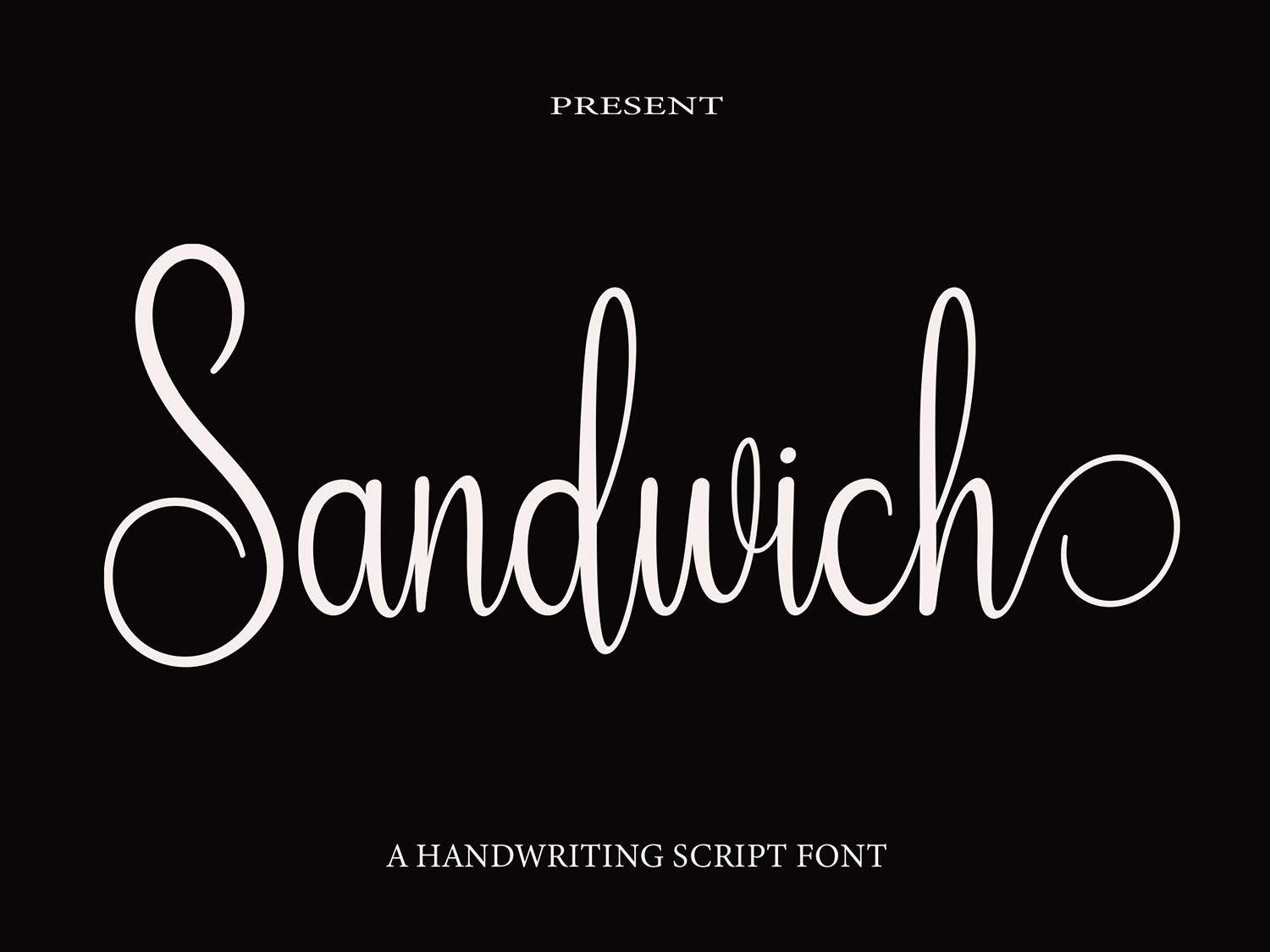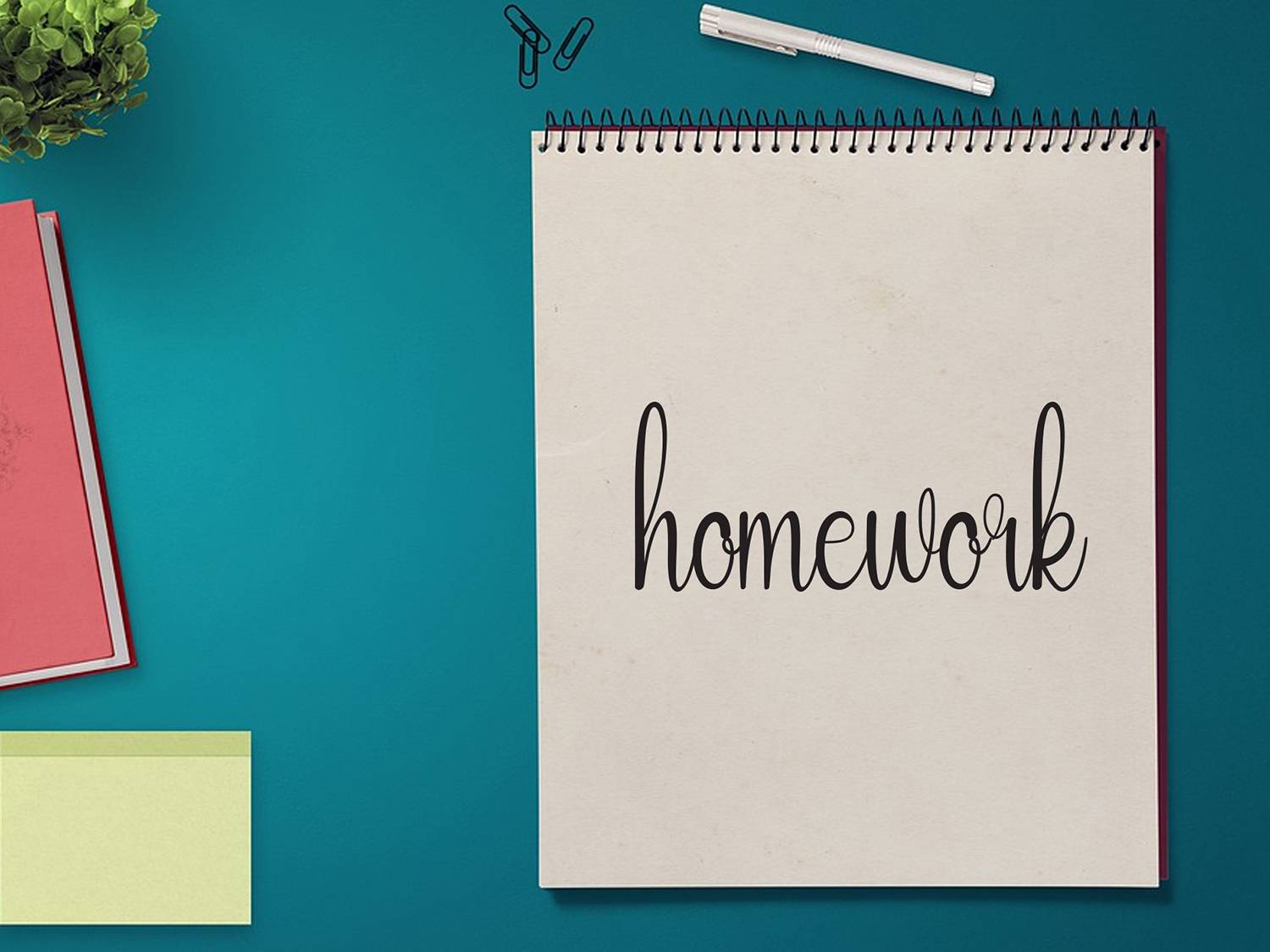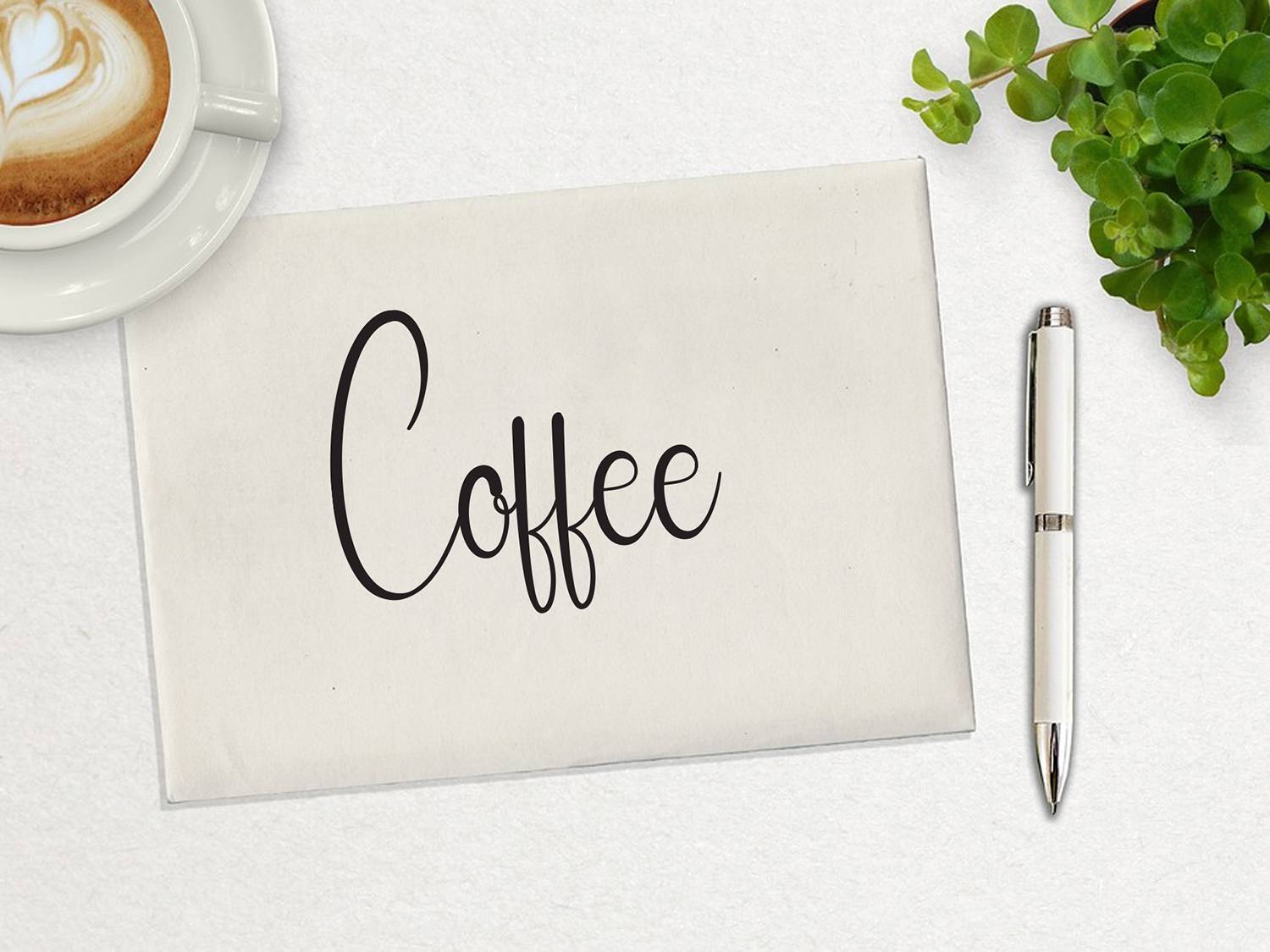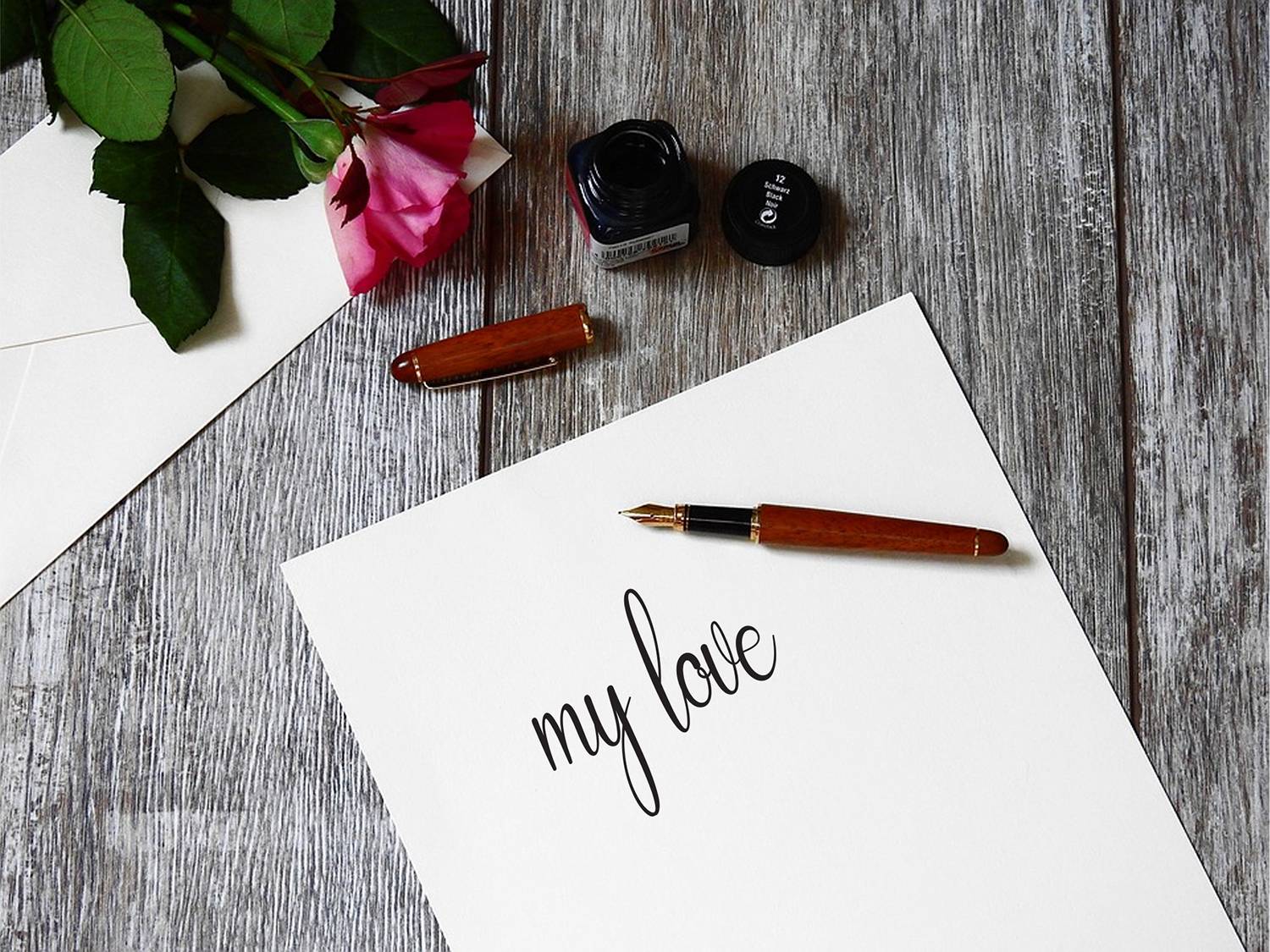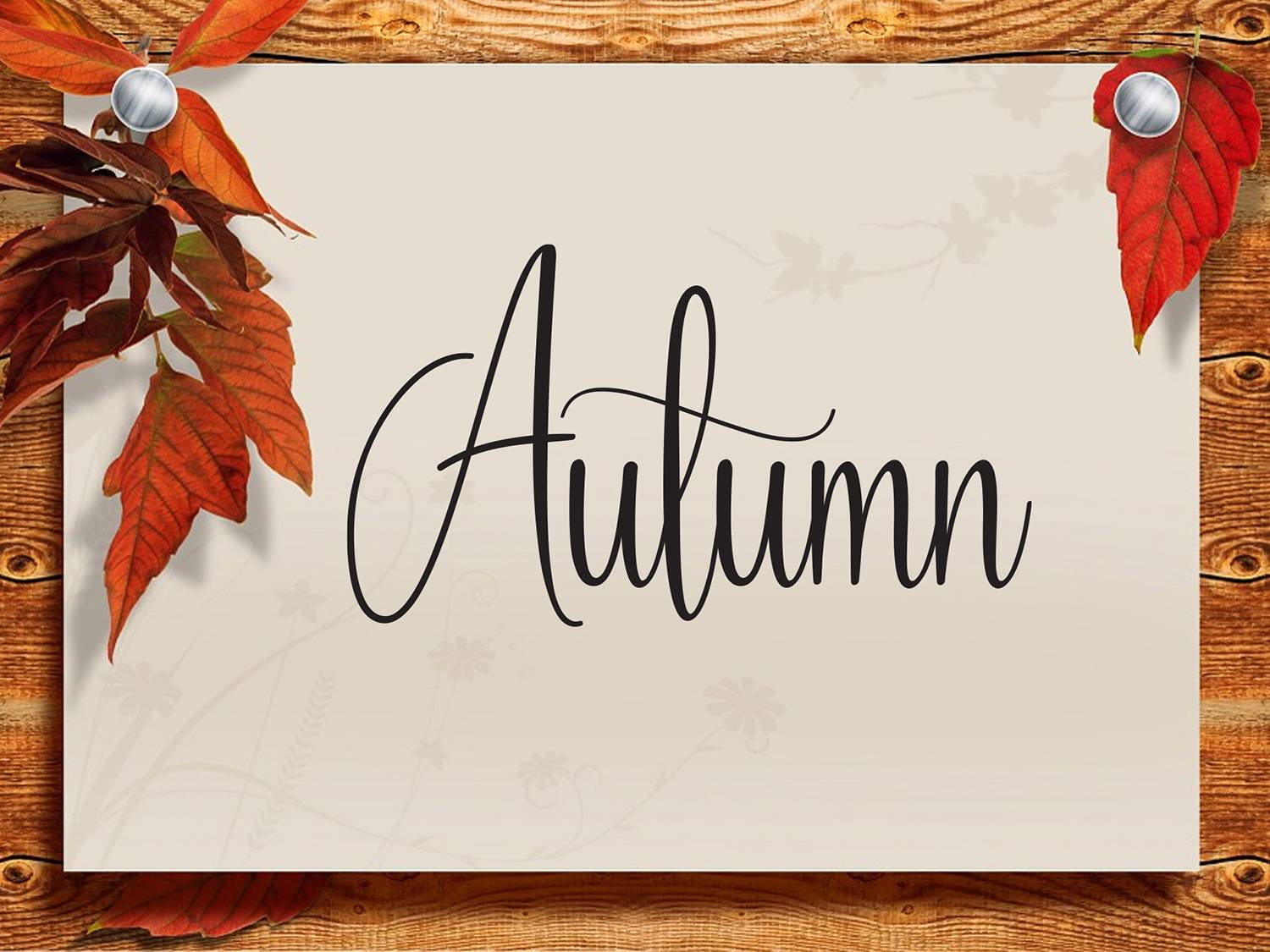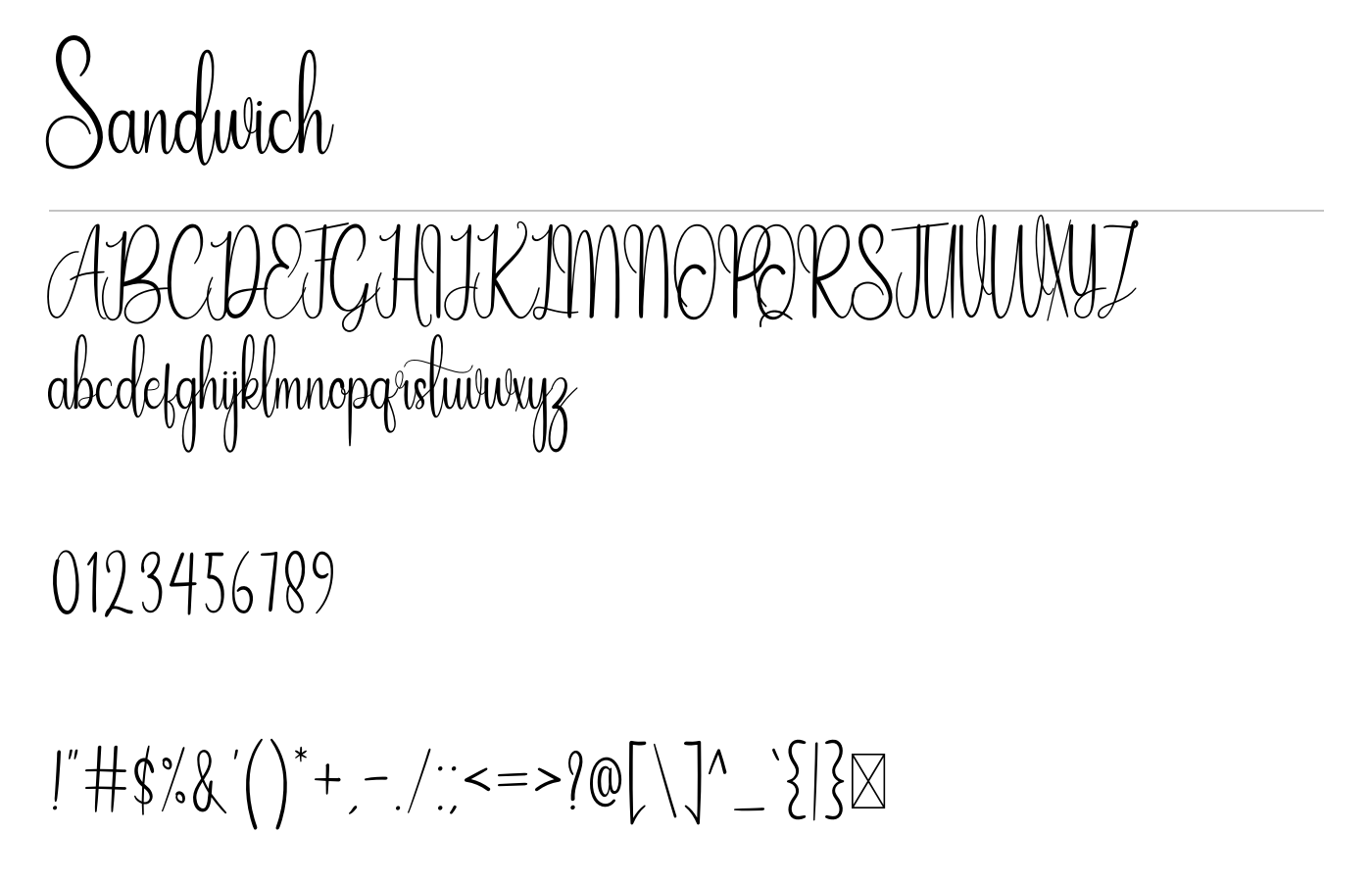
Sandwich Font is a delicate, elegant script typeface with tall, narrow letterforms and a playful, handwritten style. Its thin strokes and flowing curves give it a stylish and charming personality, making it perfect for creative branding, invitations, and feminine design projects. This font adds a touch of sophistication and whimsy to headlines and decorative text where a unique, personal feel is desired.
Sandwich Font
About Sandwich Font